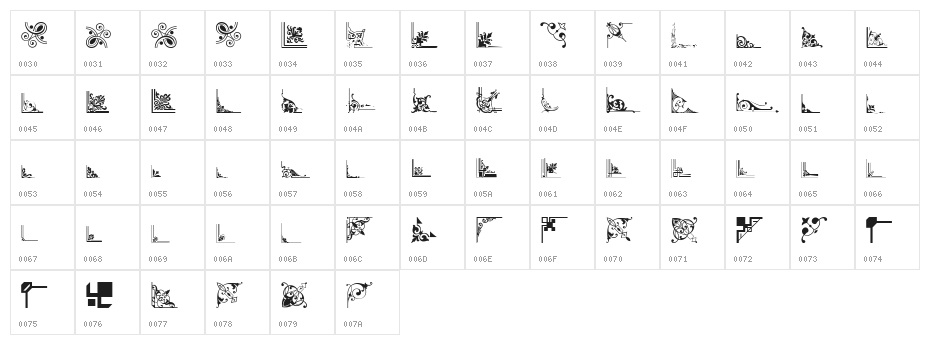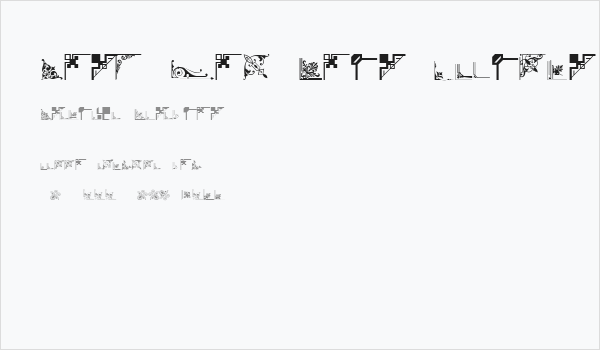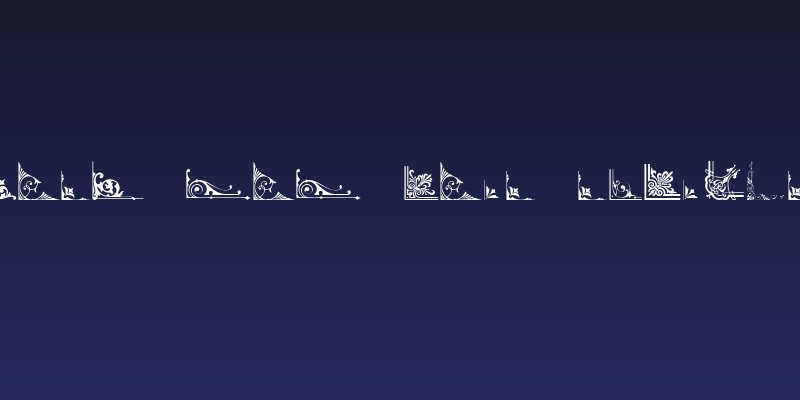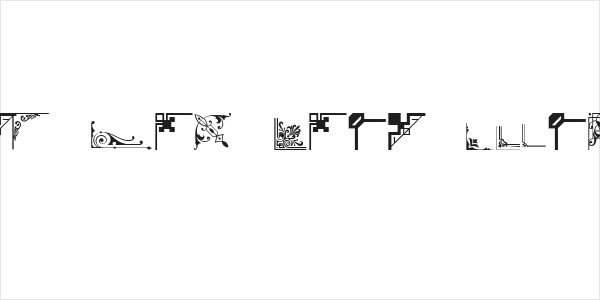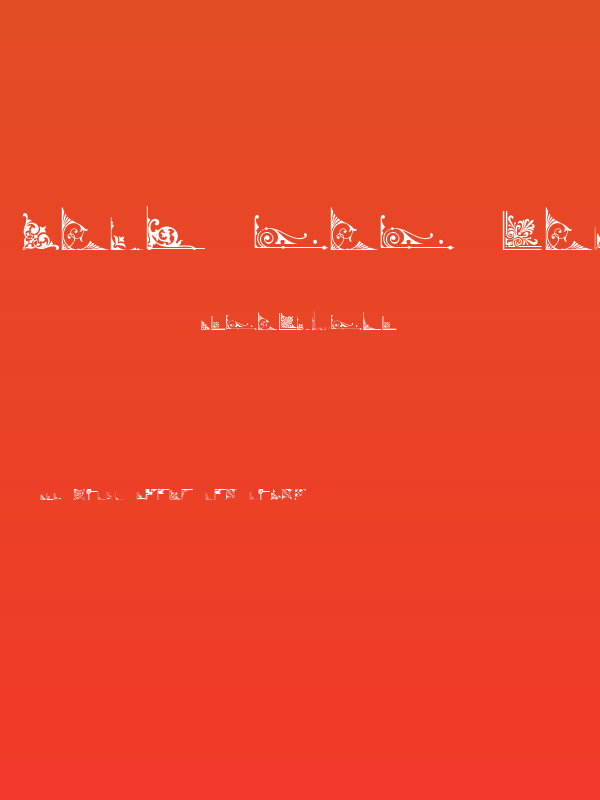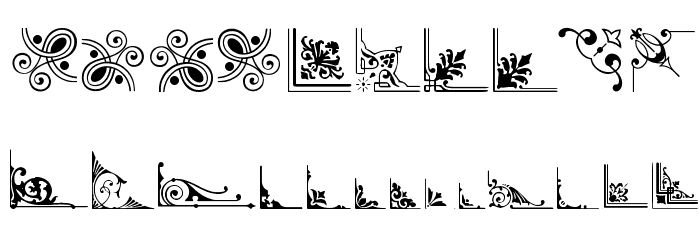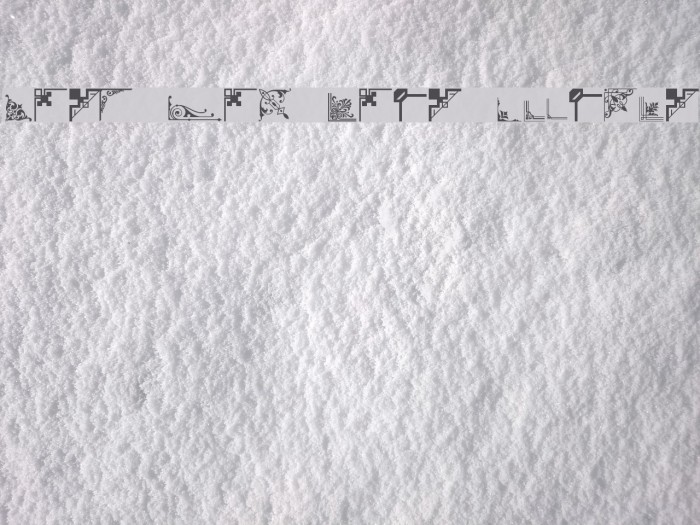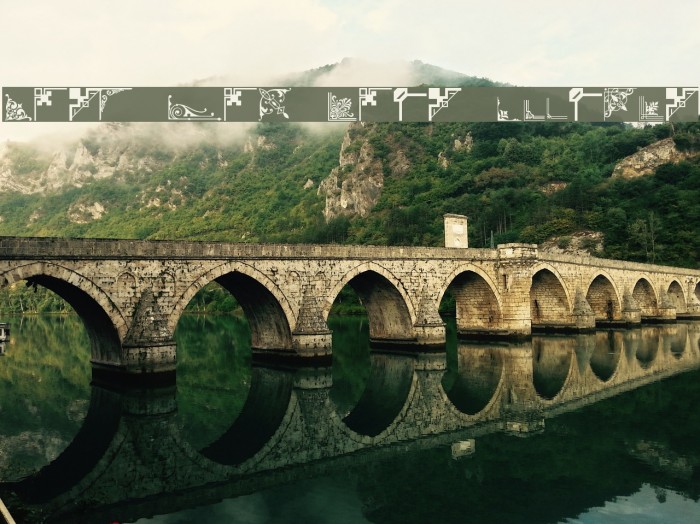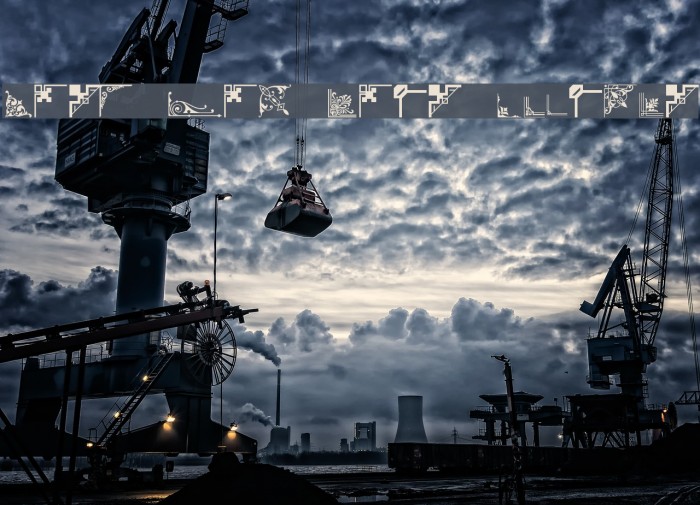
Corn Pop Four Regular Font
Corn Pop Four Regular Description
This font is a highly decorative and ornate style, featuring intricate flourishes and embellishments. Each character is designed with elaborate patterns, making it ideal for creating a vintage or classical aesthetic. The design elements include swirls, floral motifs, and geometric shapes, which are integrated into the characters, giving them a unique and artistic appearance. The font is not suitable for body text due to its complexity but can be effectively used for decorative purposes. The characters are consistent in their ornamental style, providing a cohesive look across the entire set.
| Use Case | Logos, Decorative elements |
| Proposed Projects | Ideal for wedding invitations, vintage-themed posters, decorative signage, and artistic projects requiring a classical touch. |